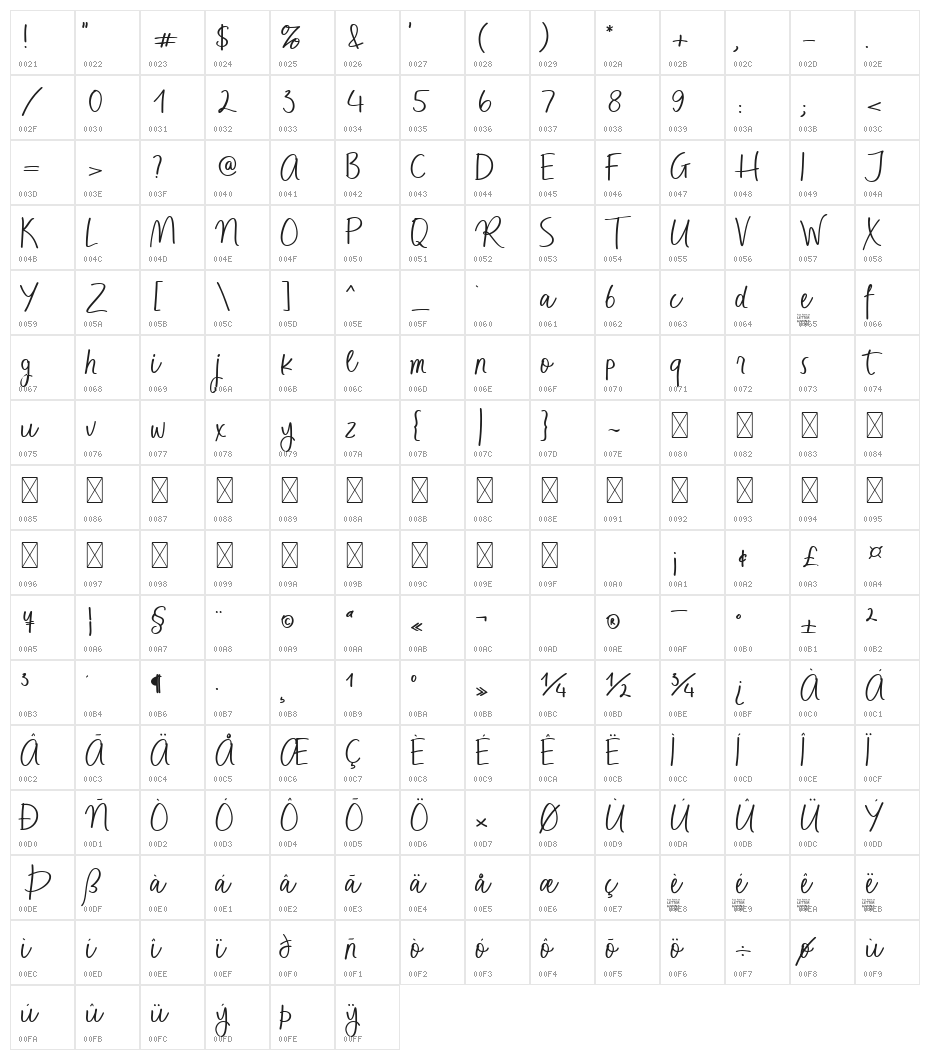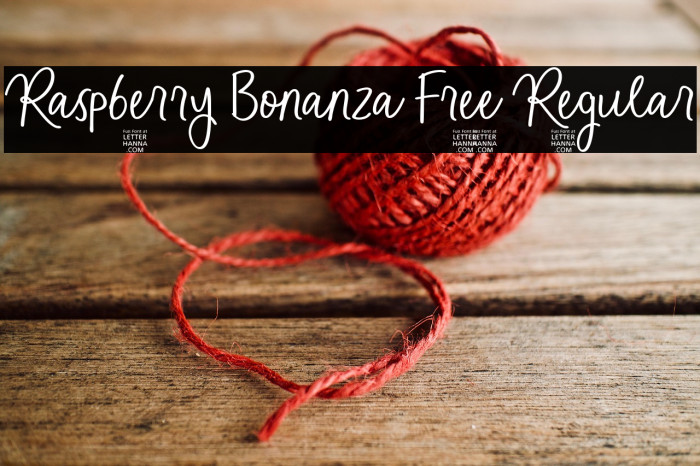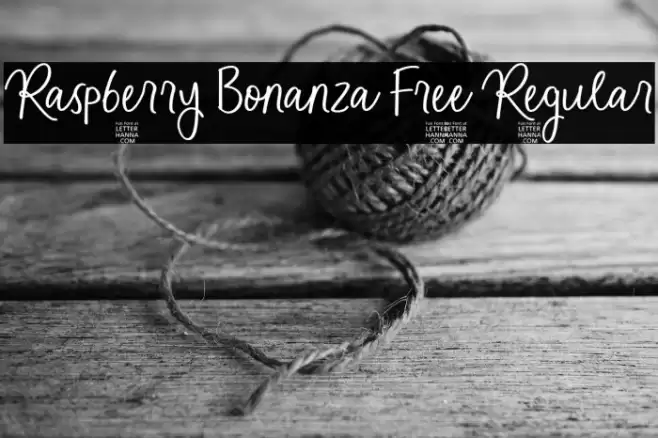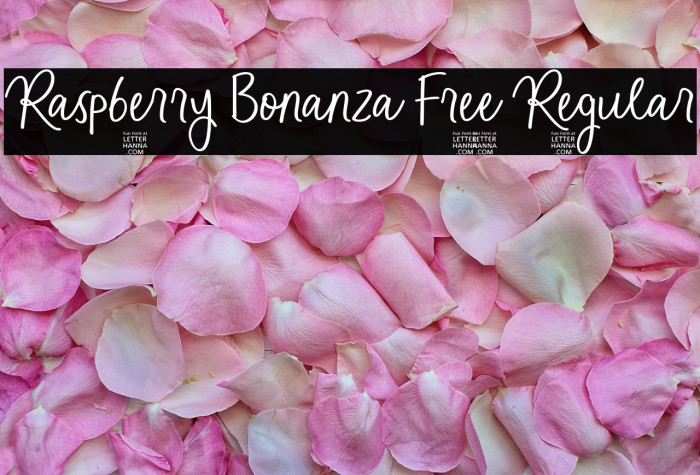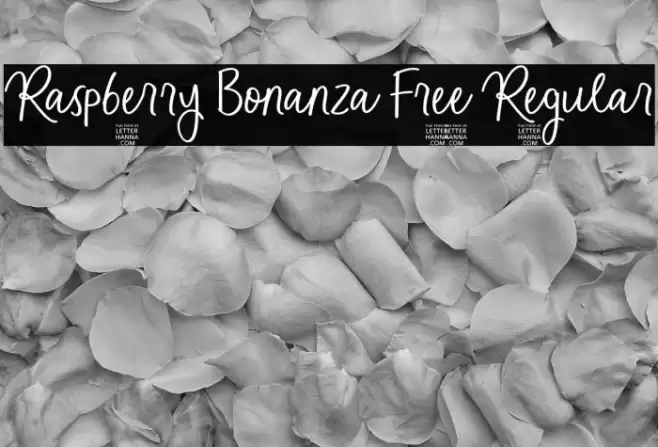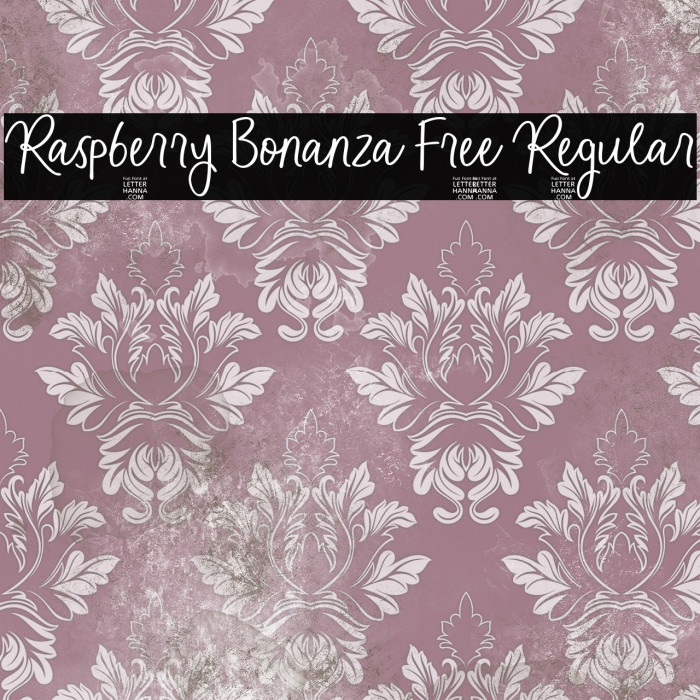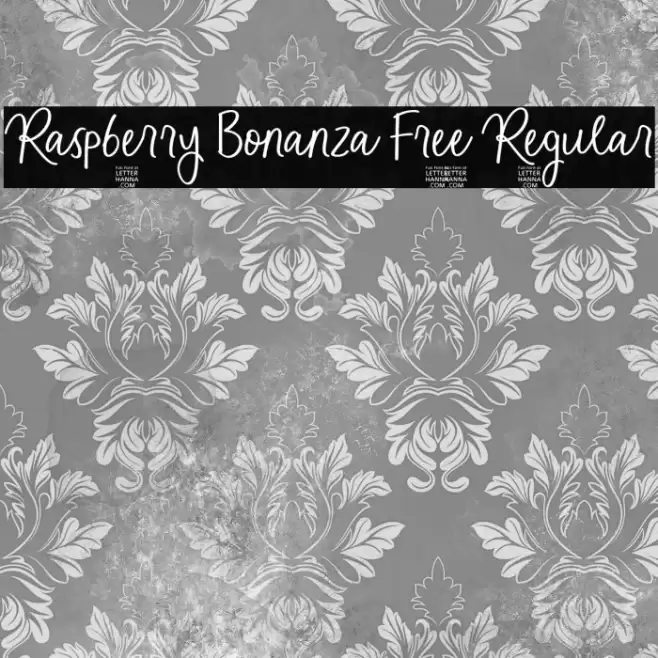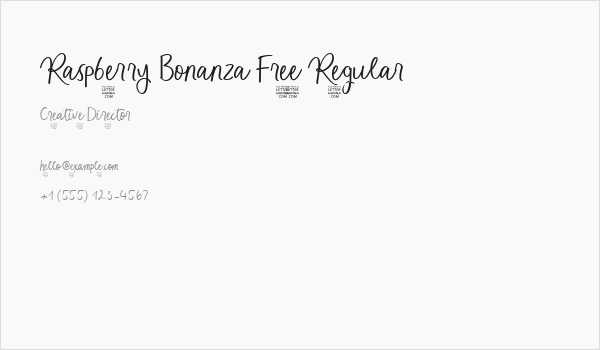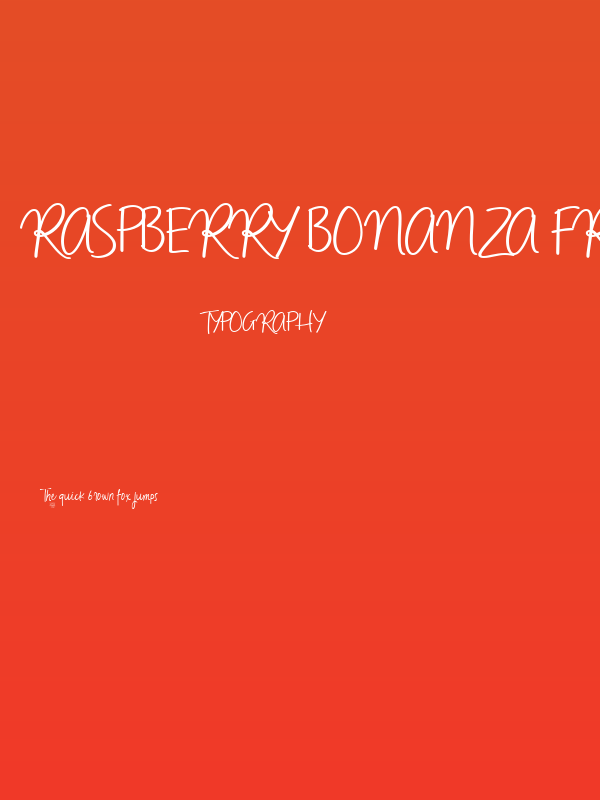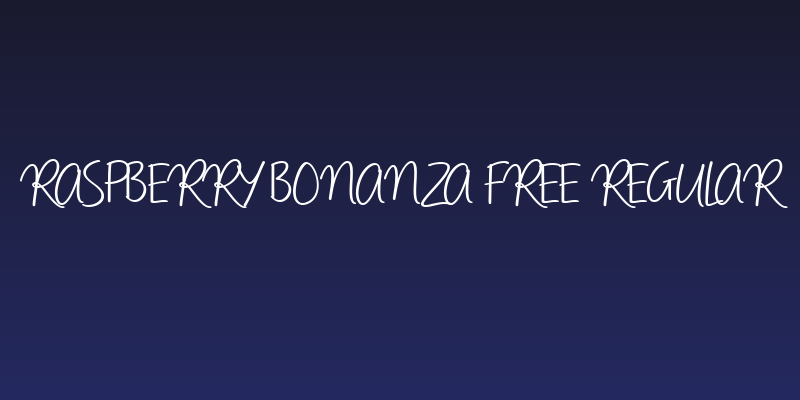
Raspberry Bonanza Free Regular Font
Raspberry Bonanza Free Regular Description
This font features a playful and whimsical design, characterized by its rounded edges and slightly irregular shapes. The letters have a hand-drawn quality, giving them a friendly and approachable appearance. The uppercase and lowercase letters maintain a consistent style, with a slight variation in size and weight that adds to the font's charm. The numerals and special characters are designed to match the overall aesthetic, ensuring a cohesive look across all text. This font is perfect for projects that require a touch of fun and creativity.